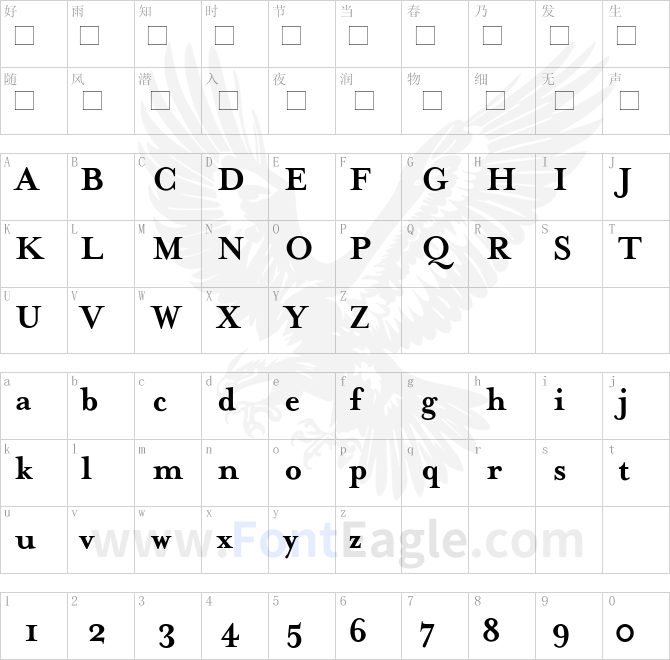
- Font name:MrsEaves
- Font Subfamily ID:DTP-MrsEaves-Bold
- Font Full Name:MrsEaves-Bold
- Postscript:MrsEaves-Bold
- Font Copyright:Copyright (C) 1996 Emigre Graphics, Designed by Zuzana Licko